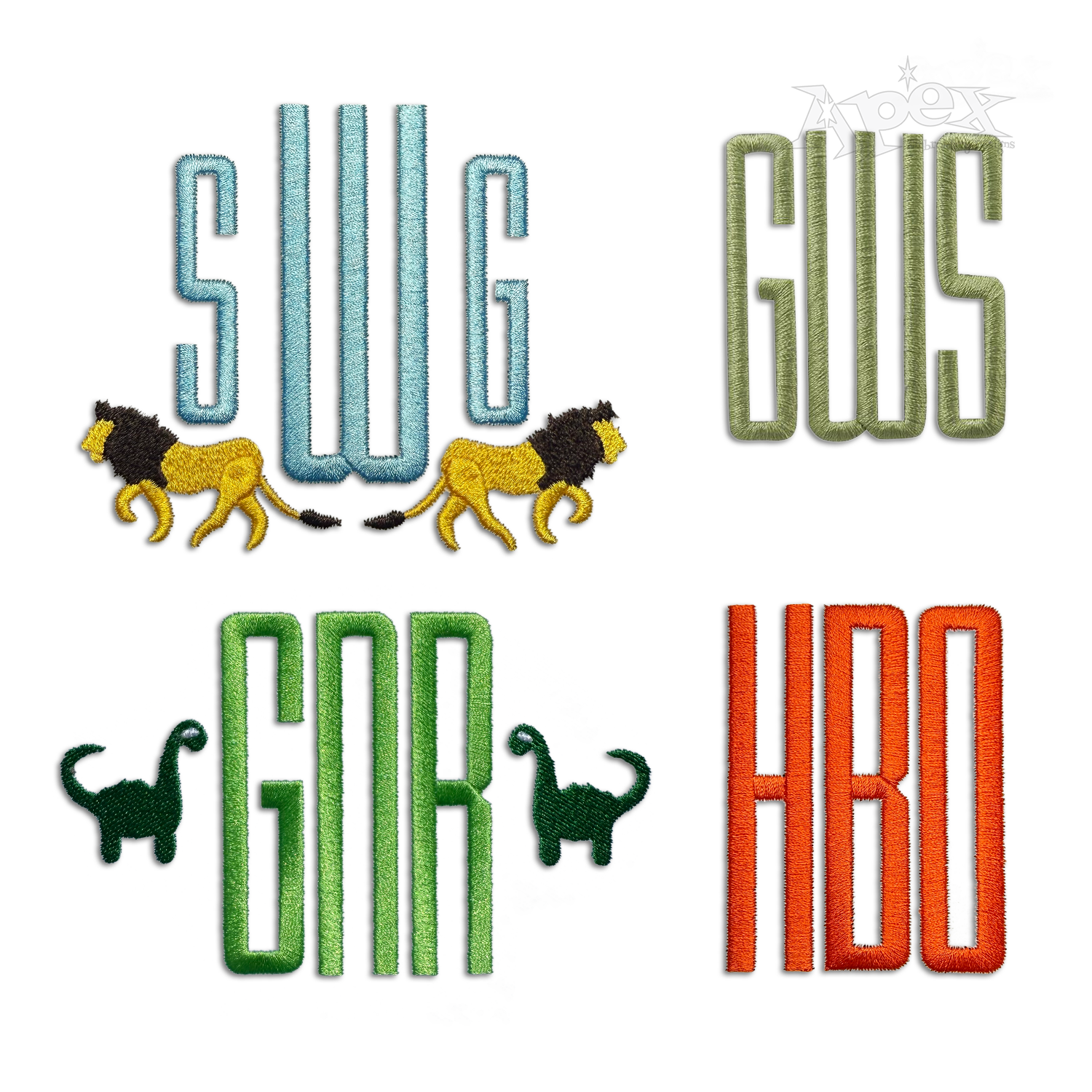
Modern Block Applique Embroidery Font
There is a striking confidence in clean, architectural typography when translated into thread and textile. In designing the Modern Block Applique Embroidery Font, our studio set out to bridge the gap between crisp mid-century geometry and the tactile warmth of handcrafted fabric applique. Each letterform is drafted with deliberate proportions?bold vertical stems, generous counters, and crisp, immaculate corners that let your favorite fabric prints shine beneath a lustrous satin edge. Whether you are styling a collegiate-inspired keepsake, a graphic nursery centerpiece, or personalized resort accessories, this alphabet transforms fabric scraps and embroidery thread into timeless, dimensional art.
Project Ideas for Modern Block Applique
The clean lines and open applique windows of this alphabet invite endless creative experimentation across textures and prints:
- Bespoke Resort & Leisure Wear: Frame bold coastal stripes, seersucker, or madras plaid inside crisp block initials on oversized beach towels, linen cover-ups, and sun hats.
- Collegiate & Team Apparel: Craft classic varsity-style crewnecks and oversized fleece hoodies featuring school colors or mascot fabrics.
- Curated Nursery Decor: Personalize heirloom baby blankets, cot skirts, and linen banner pennants using playful ginghams, Liberty florals, or muted organic chambrays.
- Luxury Canvas Totes: Anchor heavy cotton canvas market bags with contrasting twill or faux leather applique for durable, customized everyday gifting.
- Tailored Home Accents: Stitch single-letter family initials onto heavyweight linen throw pillows, canvas storage bins, and holiday stockings.
Because block typography carries a strong visual weight, strategic positioning ensures balanced, professional results:
- Center Chest: Position 4-inch or 6-inch letters approximately 3 to 4 inches below the front neckline on pullovers, t-shirts, and lounge sets for a classic athletic aesthetic.
- Diagonal Corner Accent: Angle a 2-inch or 3-inch monogram across the corner of a structured blanket, napkin, or throw, keeping the border 1.5 inches from the finished hem.
- Centered Pockets & Bag Flaps: Use the 2-inch or 3-inch sizing centered directly on tote exterior pockets, backpack flaps, or apron bibs.
- Staggered Two-Letter Compositions: Pair uppercase initials with lowercase companions slightly offset vertically for an editorial, modern monogram layout on pillow shams.
Modern Block Applique Craft & Letterform Details
True applique mastery requires more than merely cutting holes in letters; it requires an intimate understanding of tension, push-and-pull distortion, and material edges. We digitized this alphabet with a tailored three-step workflow: a precise placement outline to map your fabric, an anchoring tack-down stitch engineered to secure material without puckering, and a rich, dense satin stitch finish that cleanly encapsulates raw edges.
Special engineering was poured into the corner turns and mitered junctions. Rather than crowding stitches at inside corners, our digitizing introduces subtle micro-adjustments in stitch angle that prevent bulky thread buildup while maintaining a sharp, graphic profile. Lowercase characters retain generous internal open spaces so intricate fabric patterns are highlighted rather than pinched. The result is a contemporary, structural embroidery font that runs smoothly on your machine and leaves a polished, boutique-grade finish on every piece you create.